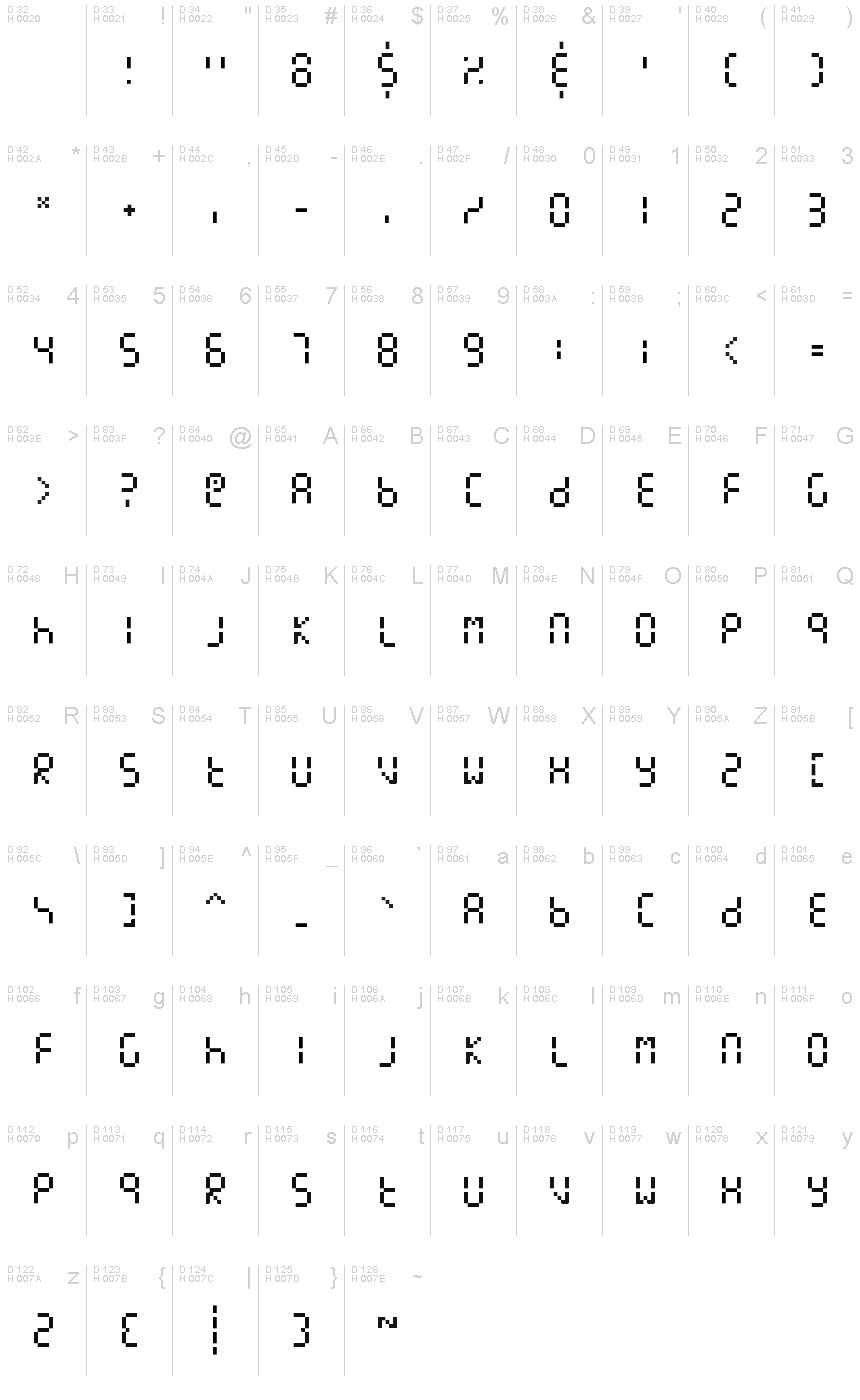
ManualDisplay
The Manual Display font, crafted by memesbruh03, is a captivating bitmap typeface that exudes a distinct digital and pixelated aesthetic. Its condensed width and sharp, angular letterforms create a bold, eye-catching visual impact. This font's unwavering precision and angular precision make it a standout choice for projects seeking a retro-futuristic or tech-inspired aesthetic.
This versatile font can elevate a wide range of design applications, from digital interfaces and gaming interfaces to print media and packaging. Its unique style can add a touch of modern sophistication to branding, advertising, and packaging designs, effectively capturing the attention of audiences.